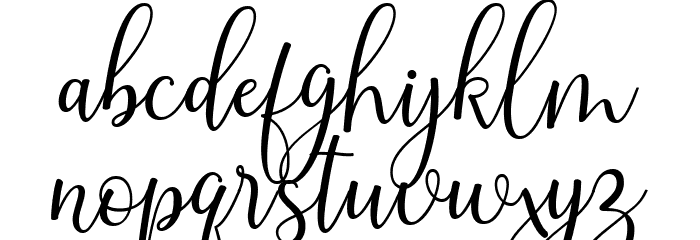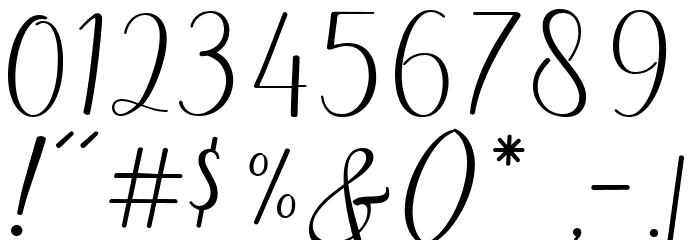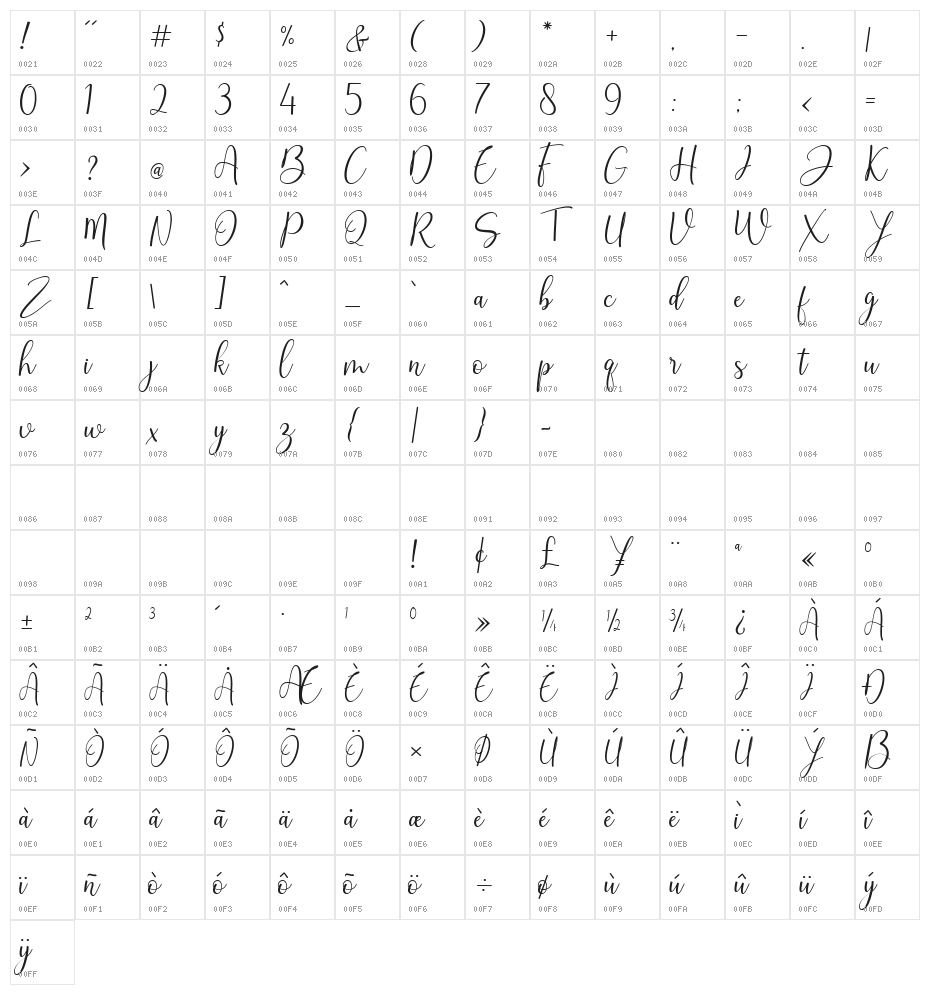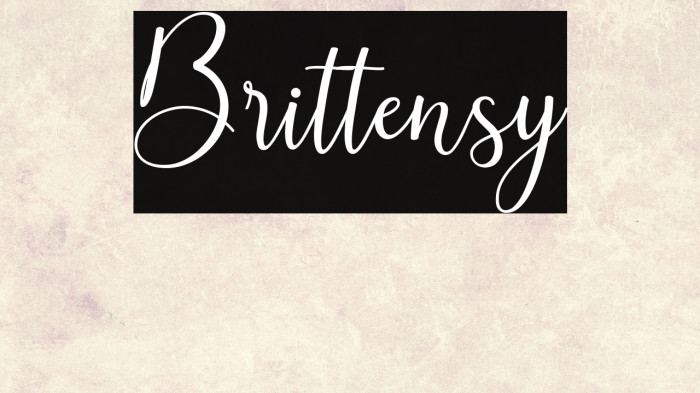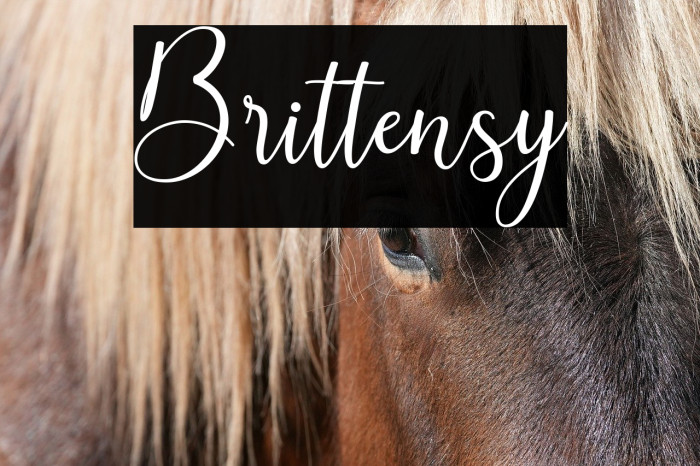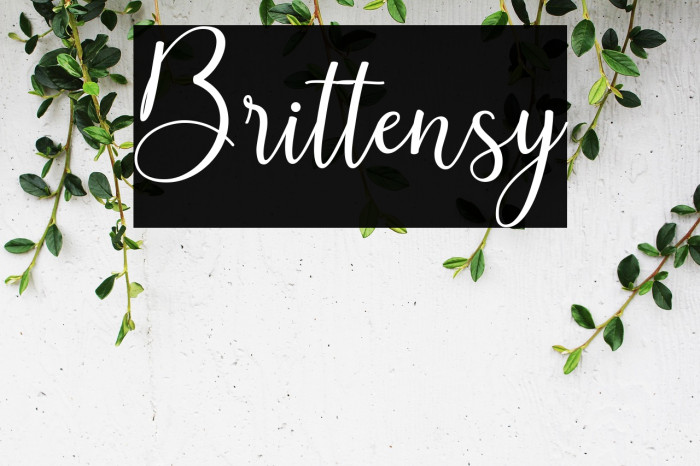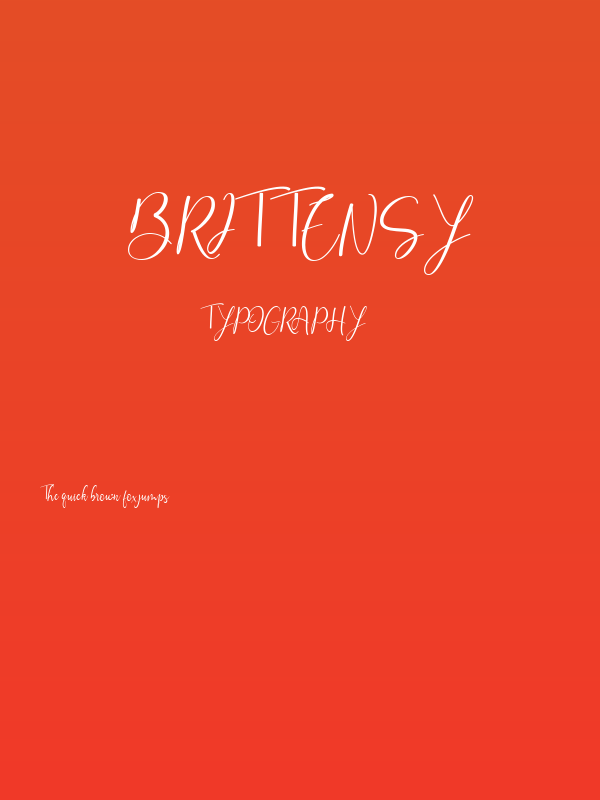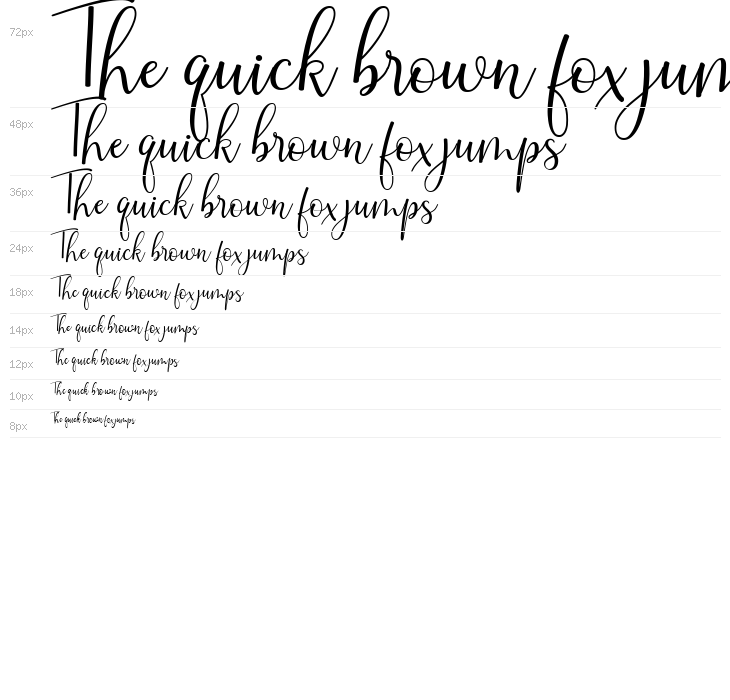
Brittensy Font
This elegant script font features a flowing, cursive style with a modern twist. The uppercase letters are tall and slightly slanted, giving a sense of movement and grace. The lowercase letters are more compact, with intricate loops and swashes that add a touch of sophistication. The numerals are clear and easy to read, maintaining the script's fluidity. Special characters are designed with the same attention to detail, ensuring consistency throughout the font. Its overall appearance is both stylish and approachable, making it suitable for a variety of creative projects.
A modern, elegant script font with flowing, cursive letters and intricate swashes.
- Proposed Projects: Ideal for wedding invitations, branding, greeting cards, and elegant packaging designs.
- Category: Script
- Use Case: Logos, Invitations, Branding